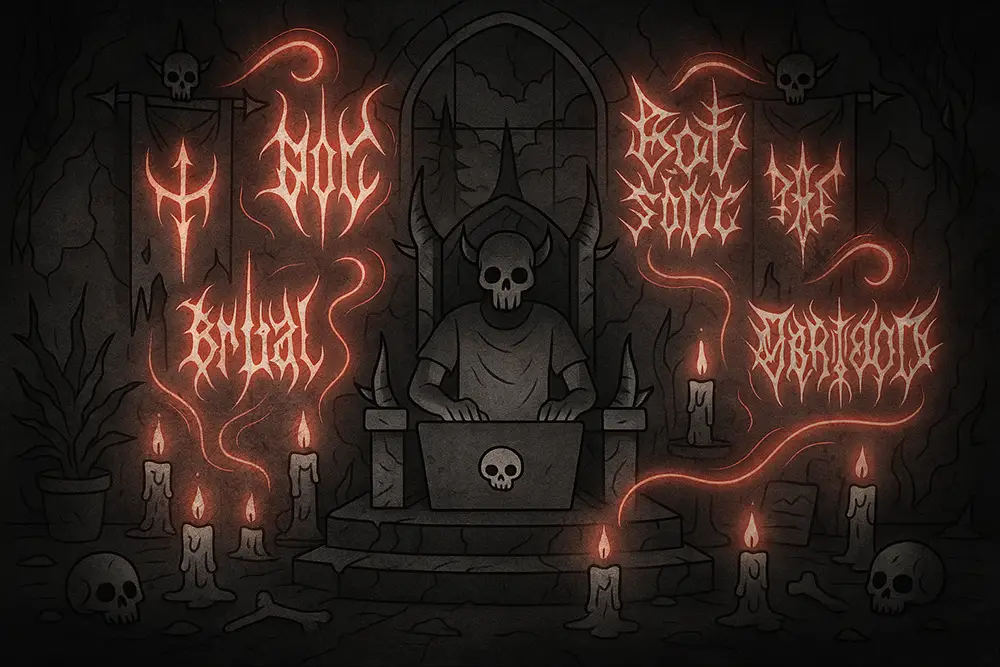
Dark, sharp, and unapologetic—Blackmetal Font is more than just typography, it’s a visual weapon. For designers, freelancers, and brand owners, the hunt for fonts that truly amplify their message often feels endless. Whether you’re crafting a brutal band logo, a chilling horror poster, or edgy merchandise, finding the right Blackmetal Font can mean the difference between blending in or standing out.
In this article, we’ll explore 33 powerful Blackmetal Font options that will boost your designs with fearsome energy and timeless style. From brutal strokes to gothic-inspired elegance, these fonts carry the weight of rebellion and the soul of underground culture.
The allure of Blackmetal typography isn’t just for bands. Today, brands, artists, and even digital creators are using Blackmetal Font to:
Here’s a curated lineup combining Figuree Studio exclusives and industry-recognized black metal classics.
Summon October’s eerie darkness with this horror-driven typeface, drenched in decay and dread.
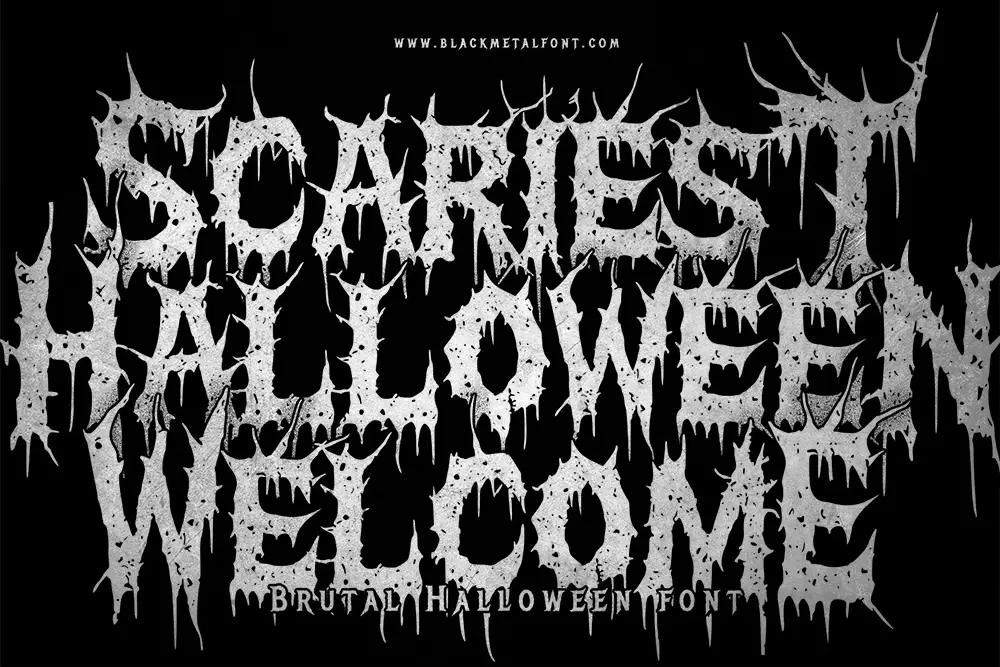
A sharp, modern blackmetal choice for designers wanting strong cuts and bold letterforms.
Step into chaos with dripping strokes and raw textures designed for extreme branding.
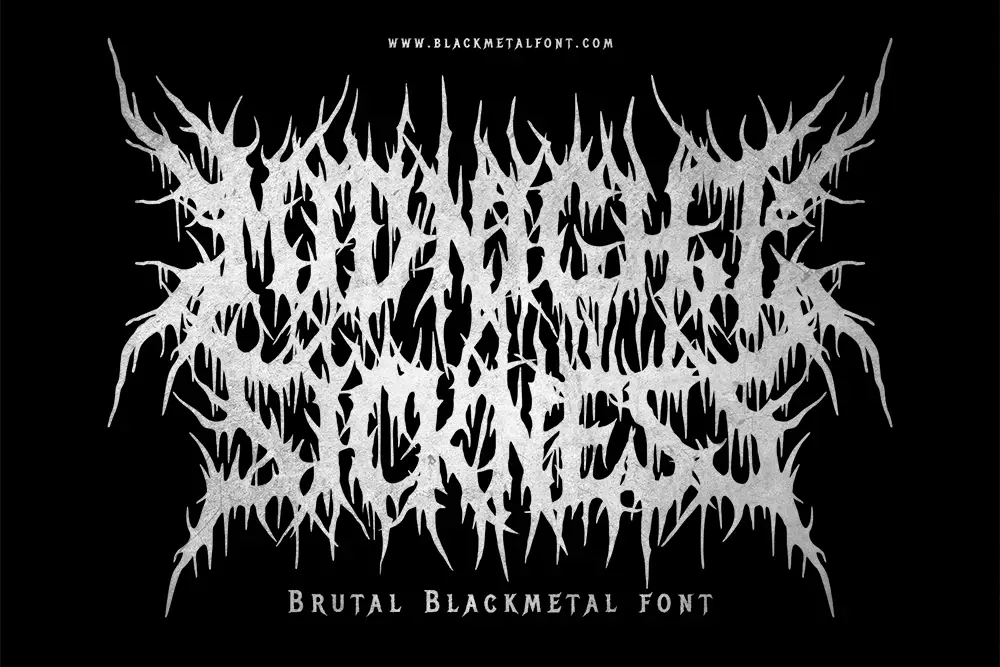
This bold, all-caps blackmetal style delivers multilingual support with commanding strength.
Balances brutal visuals with readability—ideal for merch and posters.
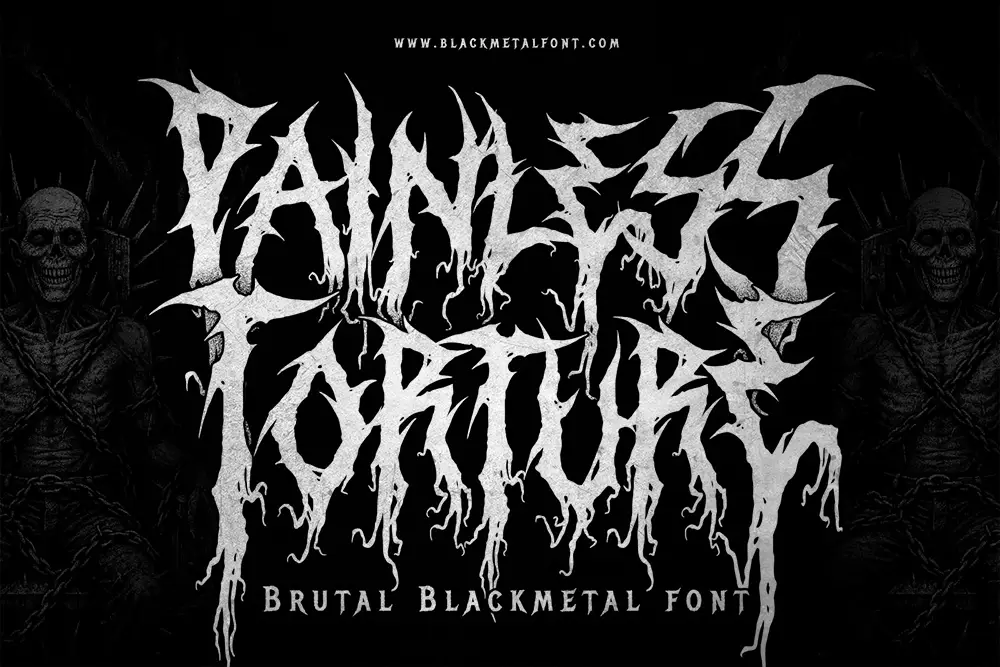
Minimalist but deadly—perfect for designers wanting clean but dark aesthetics.
A world-famous black metal staple—used across bands, apparel, and underground art.
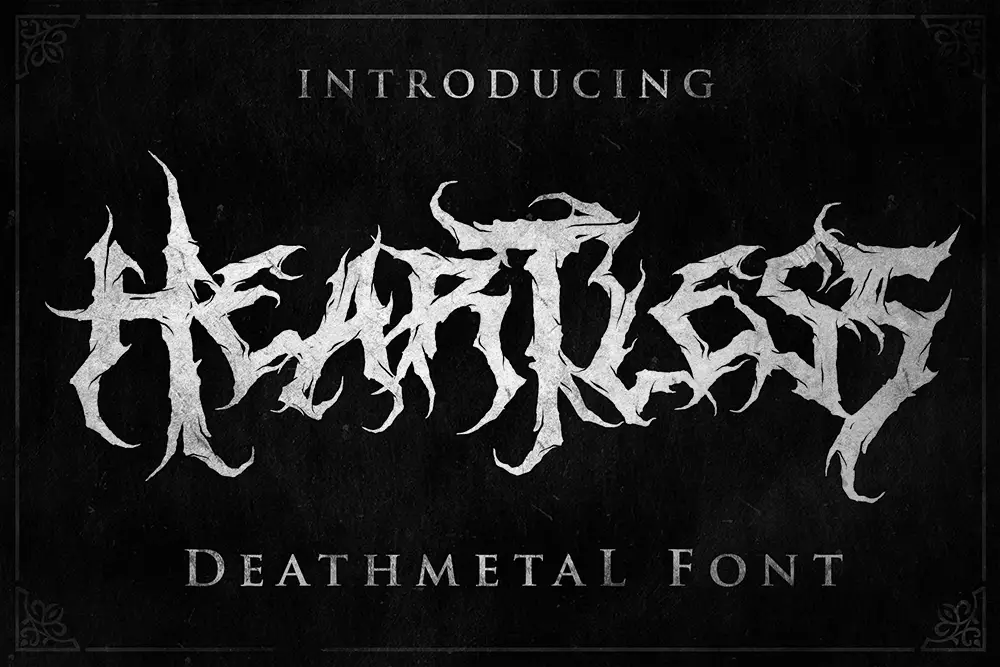
Thick strokes for impactful logos and covers. This font commands the page with dominance.
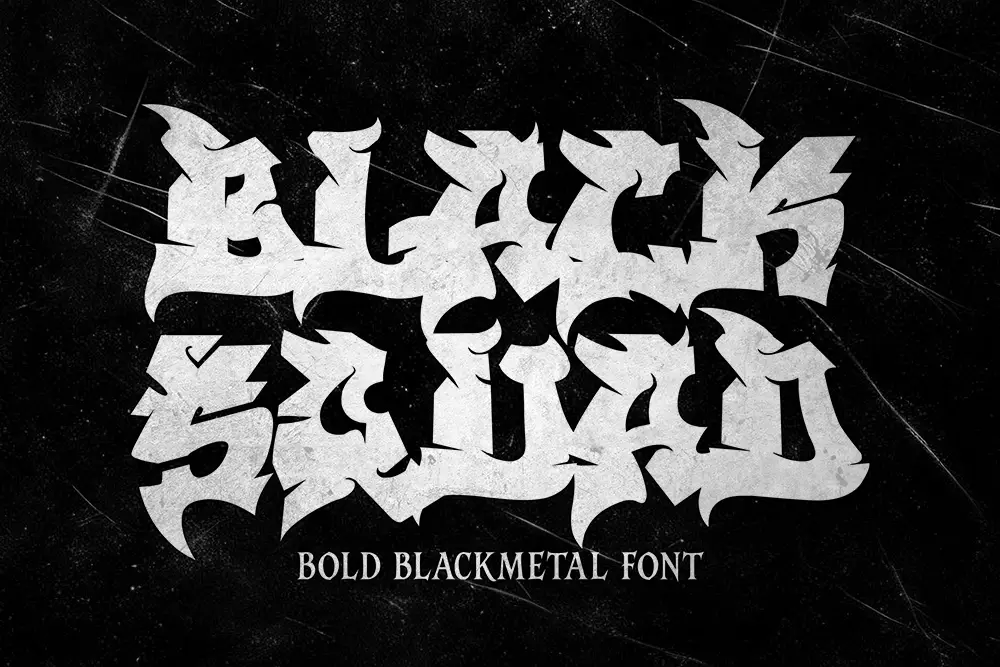
Combines chaos with versatility—easy customization for band logos and merch.
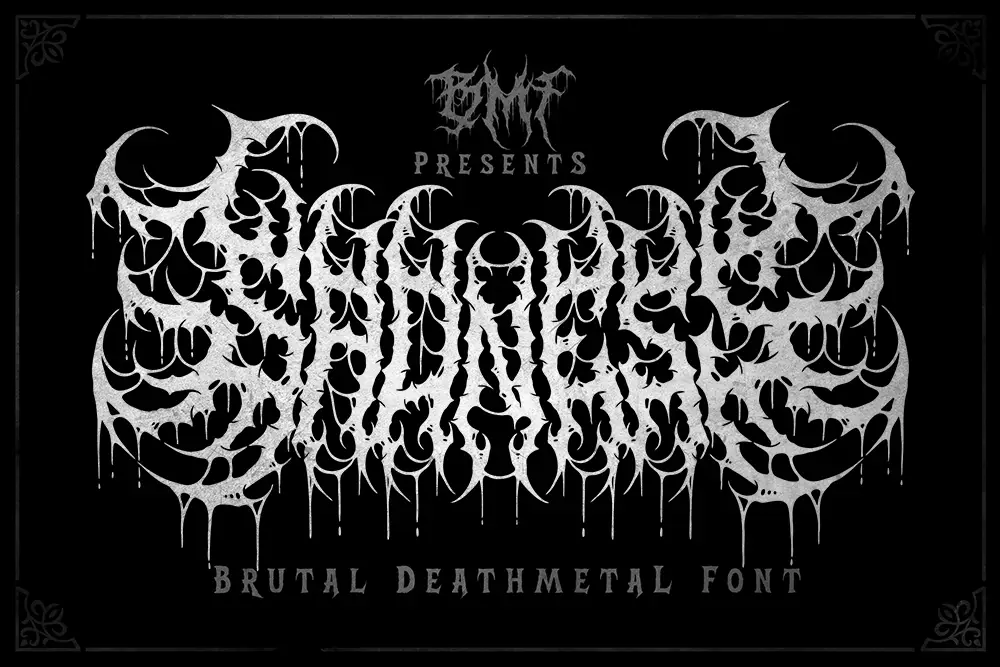
Brush-style aggression for raw energy across album art and posters.
Bleeding and rotting visuals that scream extreme.
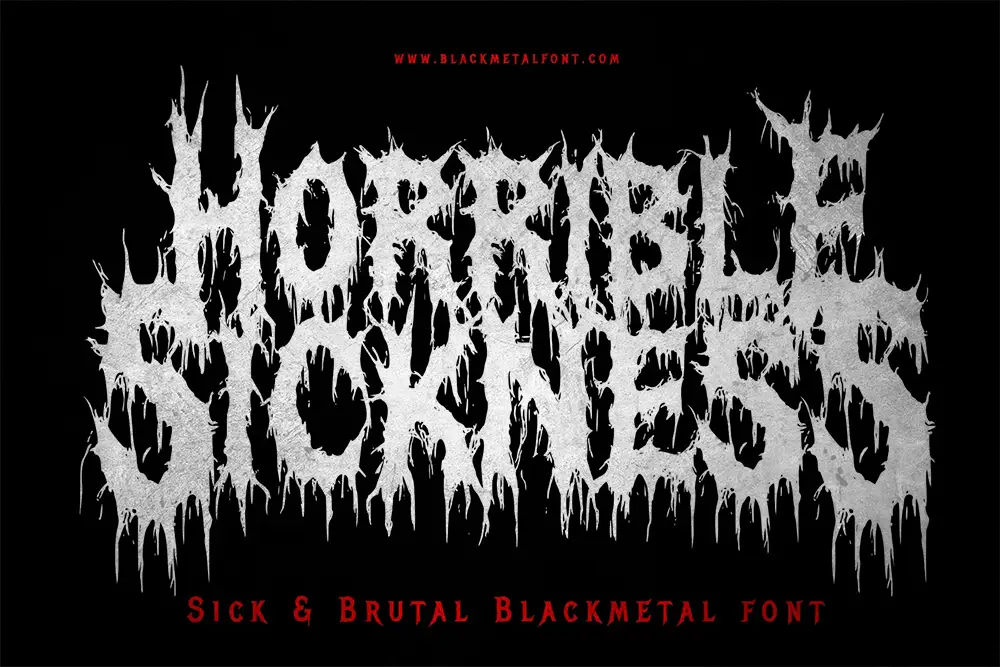
Combines gothic elegance with blackletter punch, great for gaming and tattoos.
Perfect for gore, brutal posters, and movie titles.
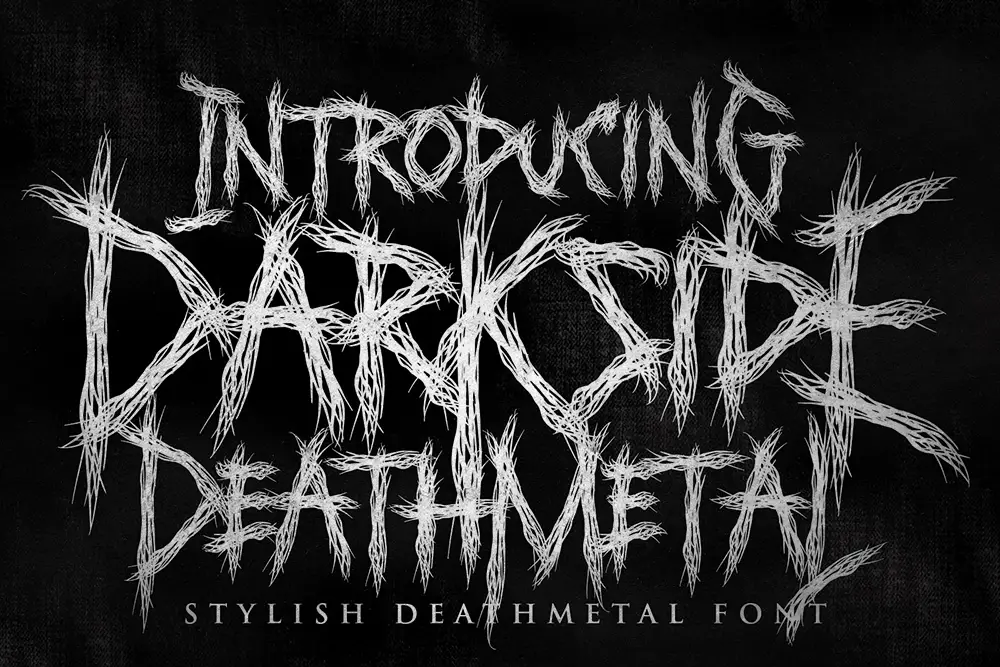
Flame-inspired and fierce, this decorative choice ignites dramatic flair.
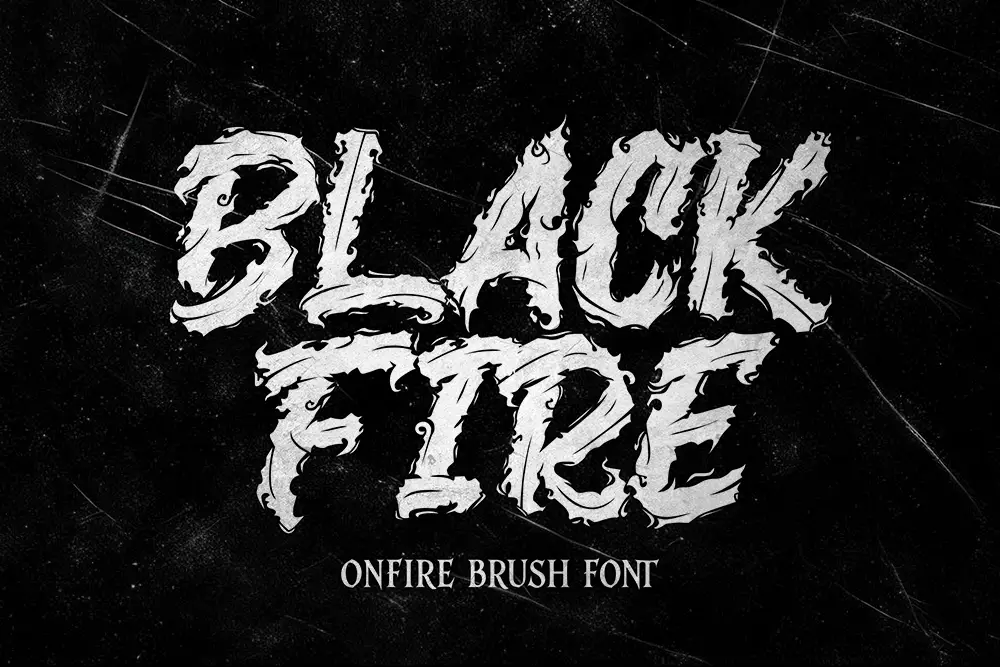
A death metal classic—awesome for clothing and movie covers.
A dripping, layered horror font oozing Halloween vibes.
A best-selling font among black metal fans. Highly popular for band logos.
Strong composition and bold presence.
Sharp uppercase alternates designed for brutal identity.
A gothic-inspired option for tattoos, apparel, and dark branding.
Another bestseller font among black metal communities.
Retro + vintage with a dark soul—perfect mix for experimental work.
A versatile font with customizable edge, inspired by “mariposa.”
Liquid-inspired visuals with a chilling, Halloween-ready vibe.
Death metal readiness for logos and brutal posters.
Brush strokes with urban rawness—great pairing with blackmetal tones.
Extreme, chaos-driven font for merch and posters.
Script style with extreme boldness—retro edge meets brutal power.
Ideal for gritty band posters and underground flyers.
Sick and chaotic strokes, excellent for extreme projects.
A brutal choice designed for horror-infused identities.
One of the most popular among blackmetal fans worldwide.
Because true elegance in blackmetal typography deserves the spotlight twice.
Blackmetal typography reminds us that design isn’t just about legibility; it’s about emotion, rebellion, and atmosphere. The right Blackmetal Font can carry more weight than a thousand words—it can define the soul of a brand, band, or project.
Blackmetal fonts don’t just decorate—they dominate. With the right choice, your logos, posters, and branding can radiate power, chaos, and authenticity. Don’t let weak typefaces hold you back.